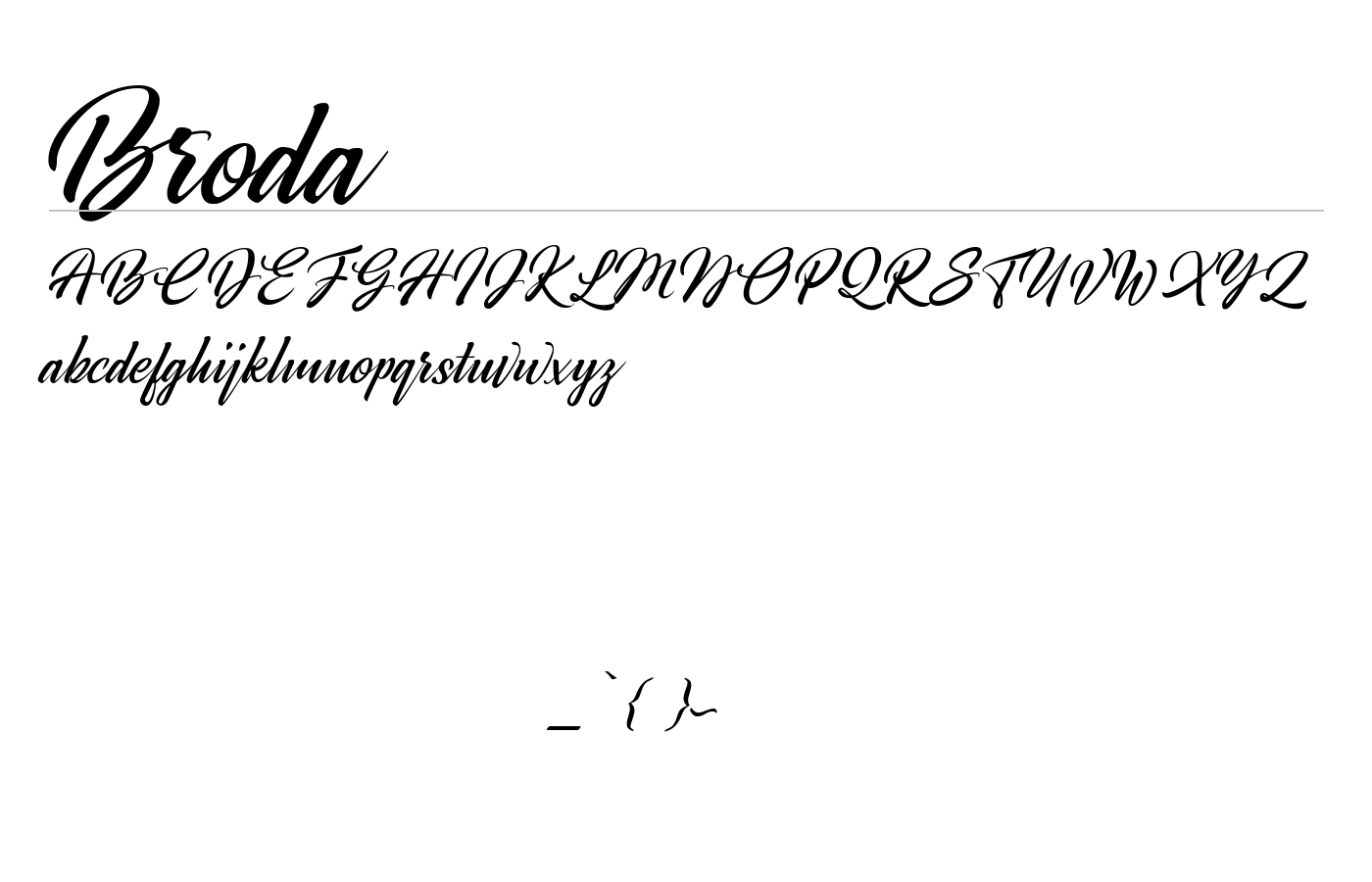
Broda is an elegant script font featuring smooth, flowing strokes with medium contrast and a chic, hand-lettered feel. Its stylish, slightly condensed letterforms and graceful curves make it perfect for luxury branding, invitations, or headlines where a sophisticated yet approachable personality is desired. This font works wonderfully in creative projects that need a touch of charm and refinement.
Broda Font
About Broda Font
| Font family | Broda Font |
| Designer | Double Z Studio |